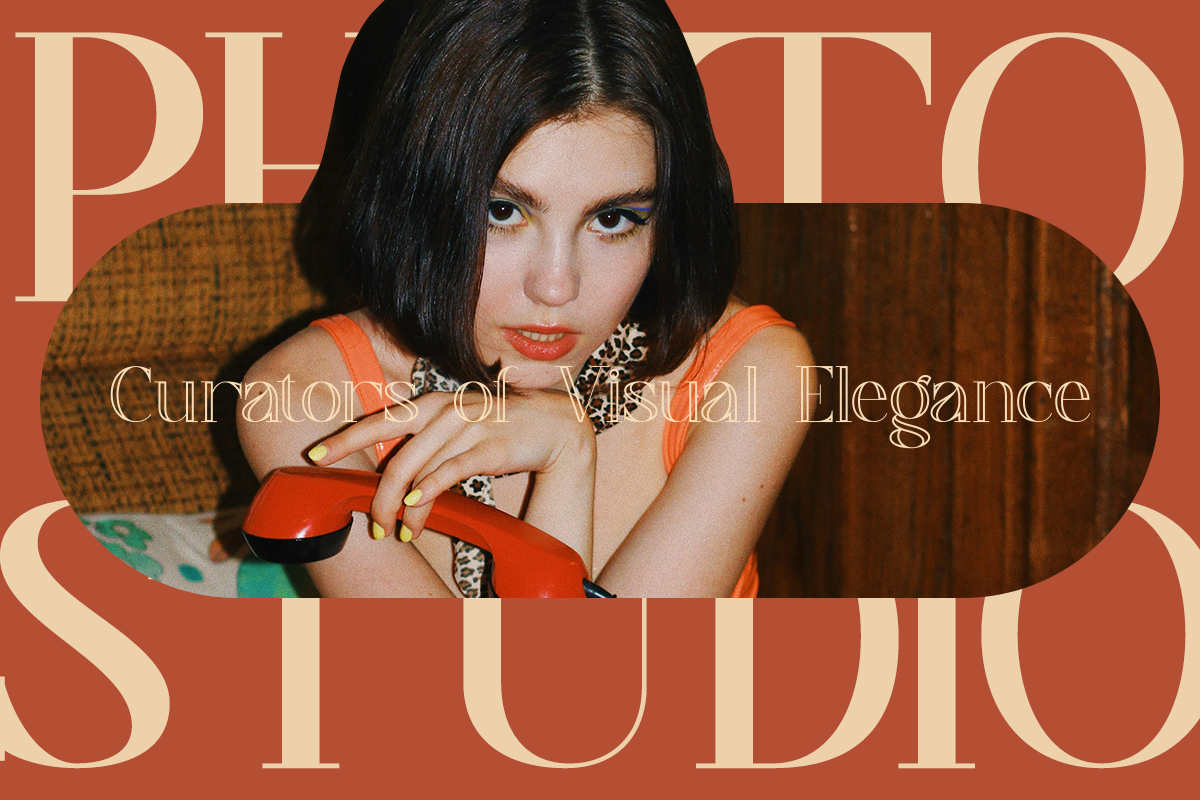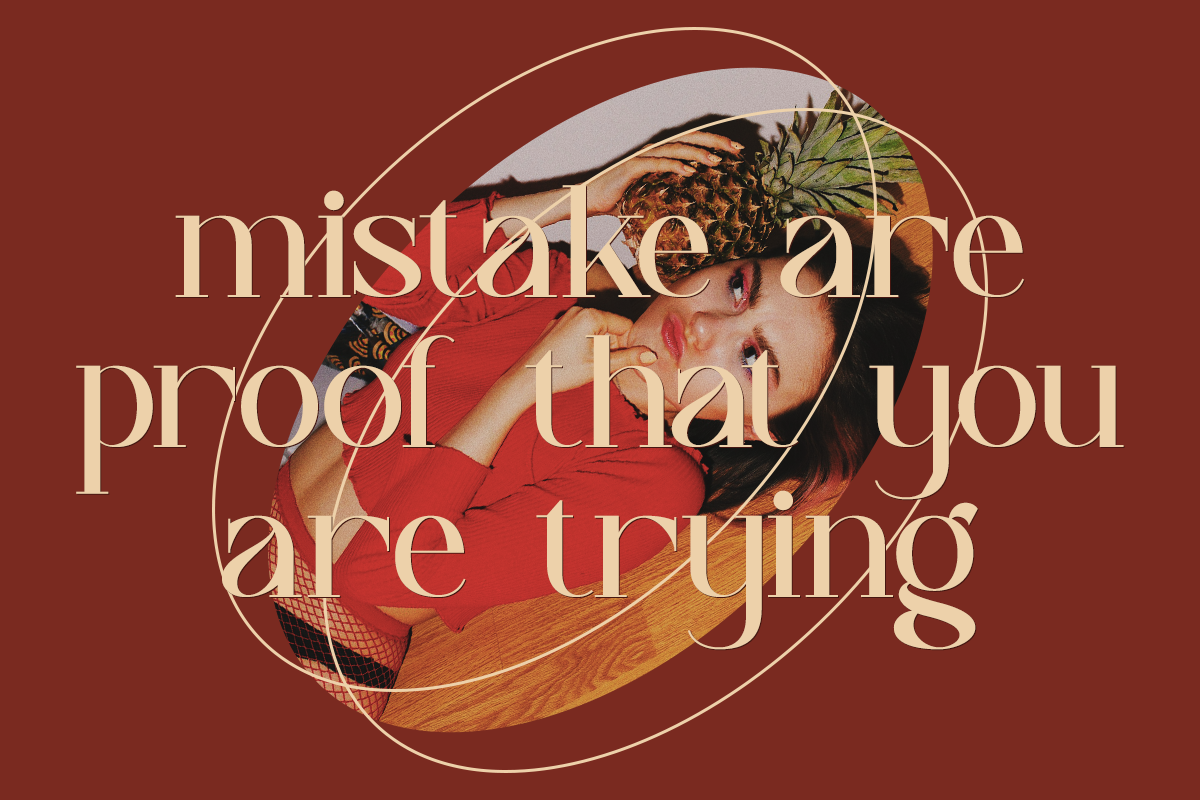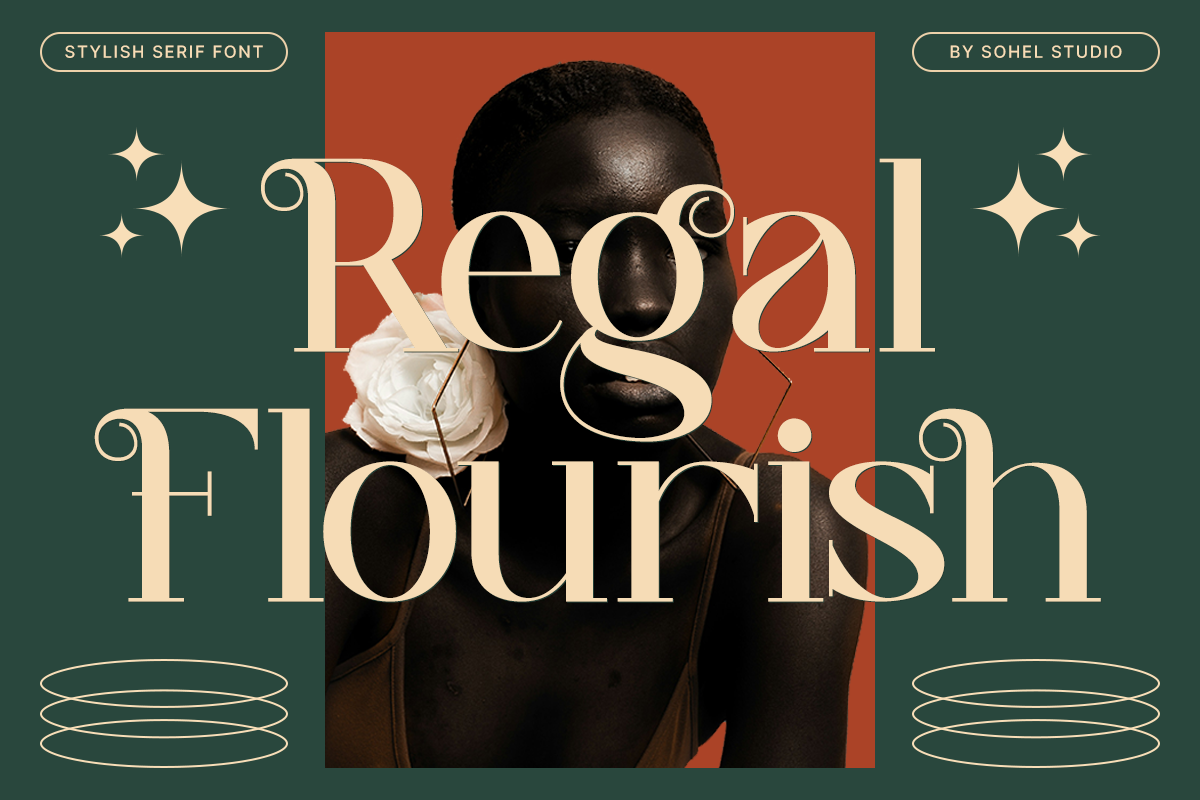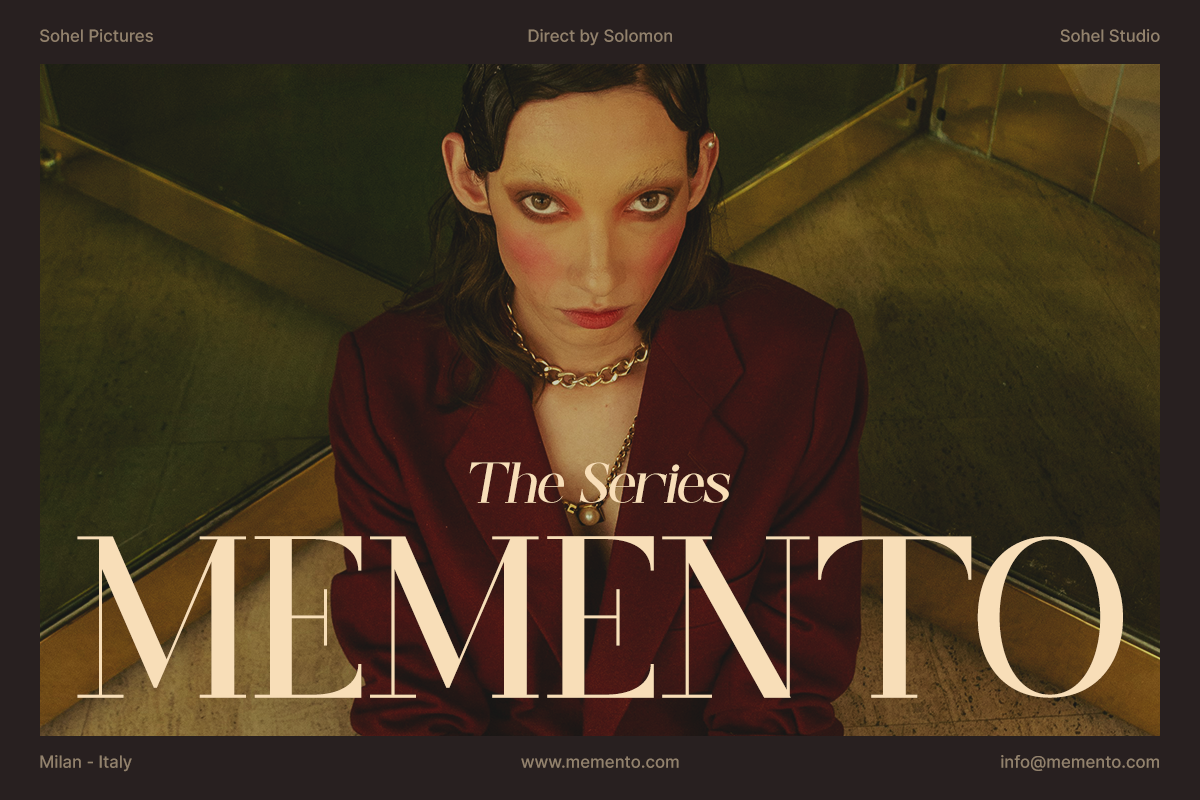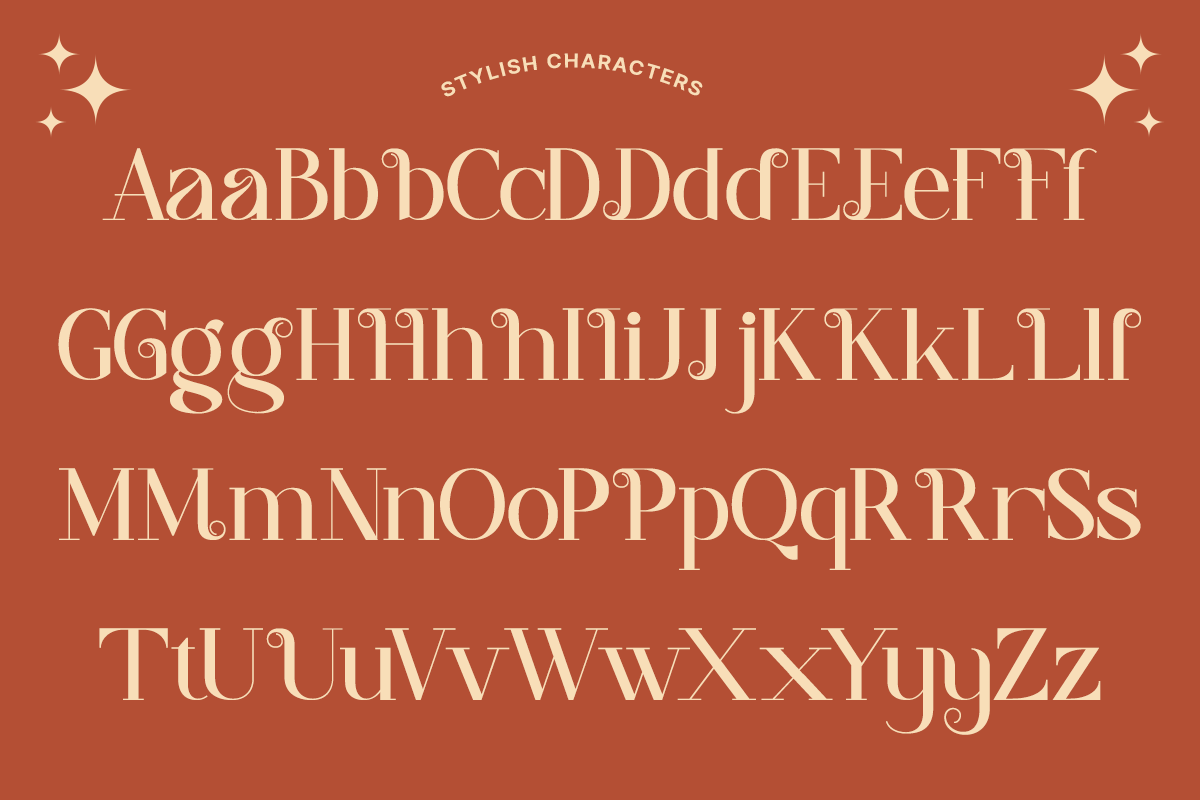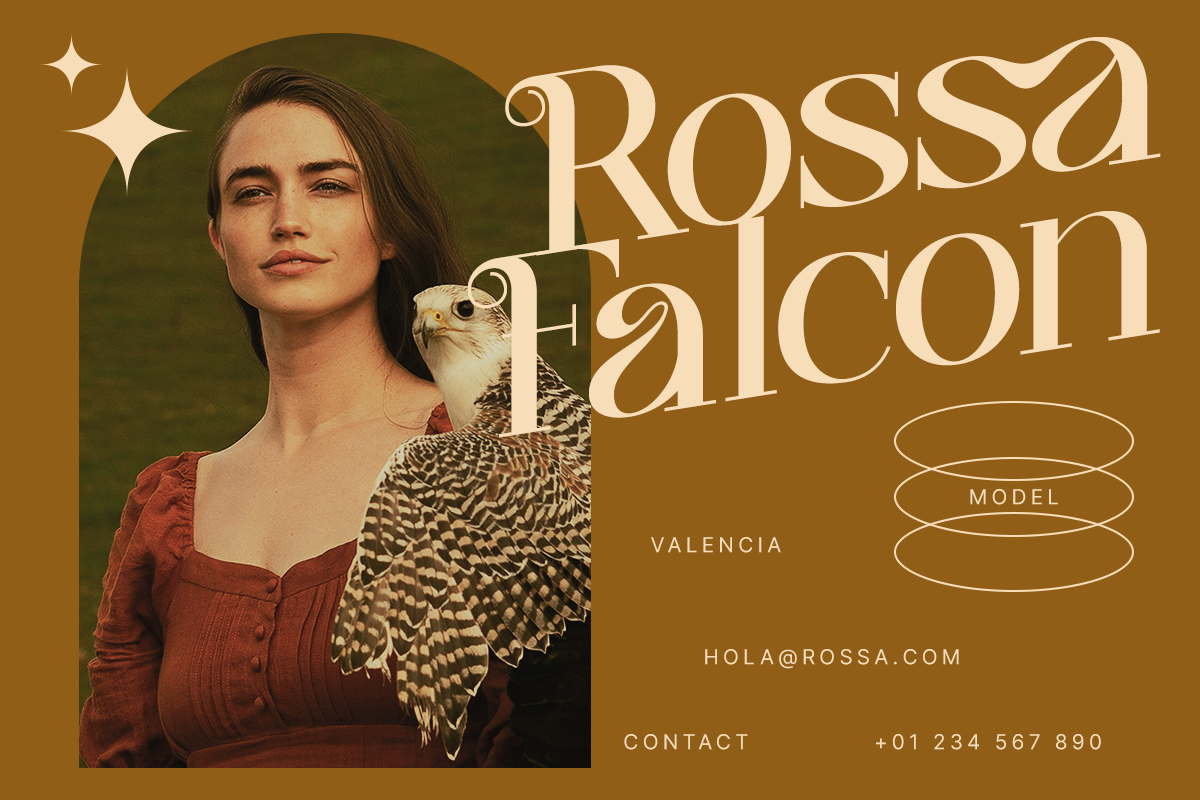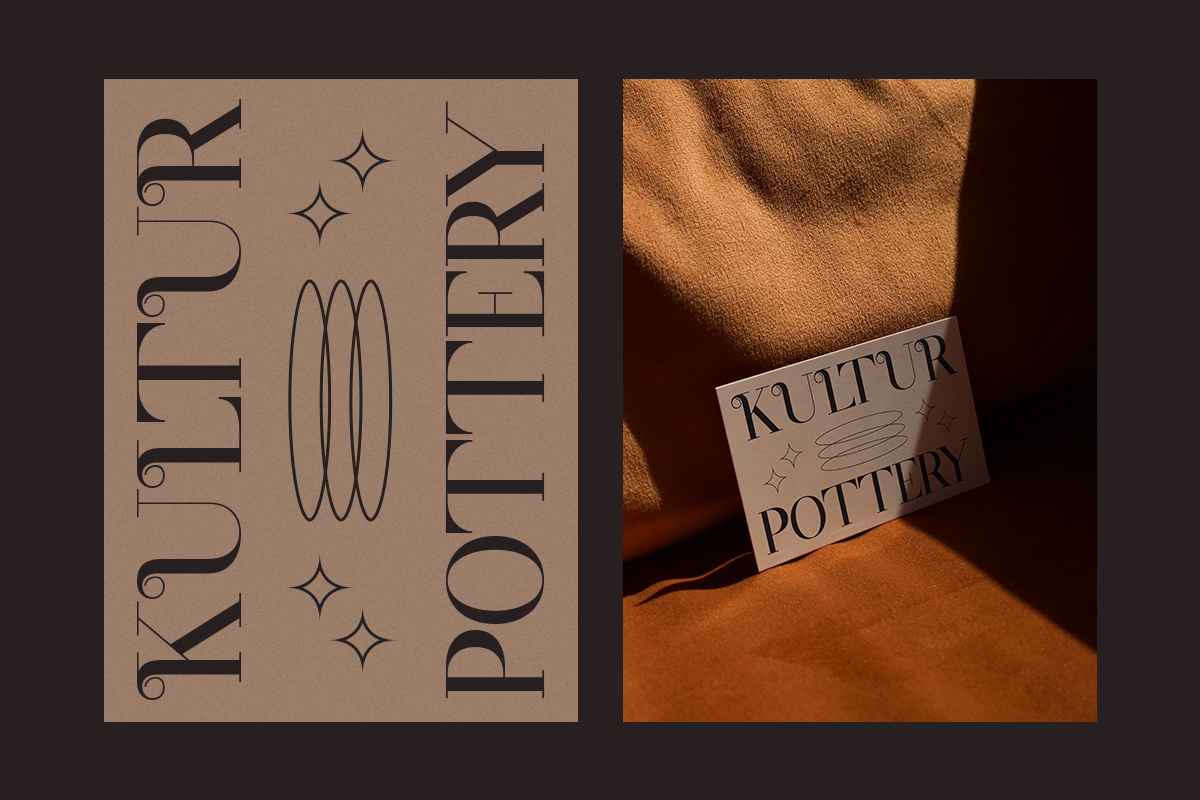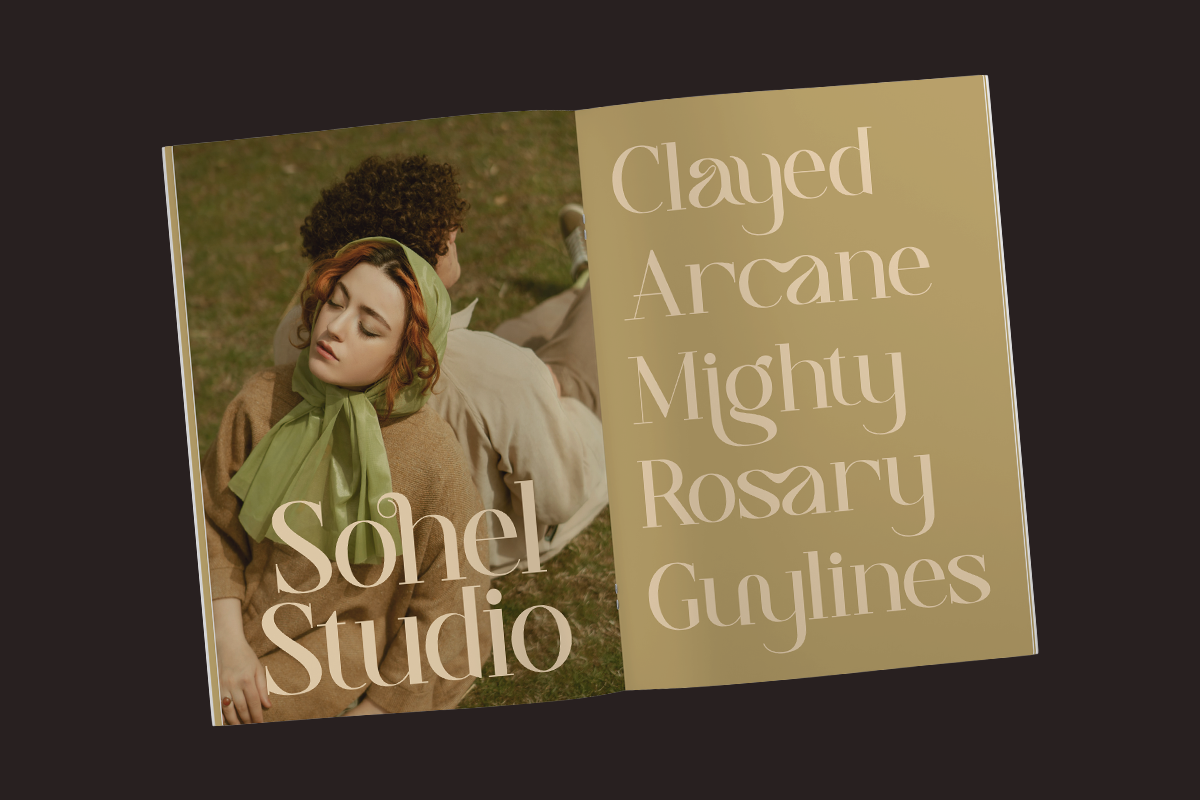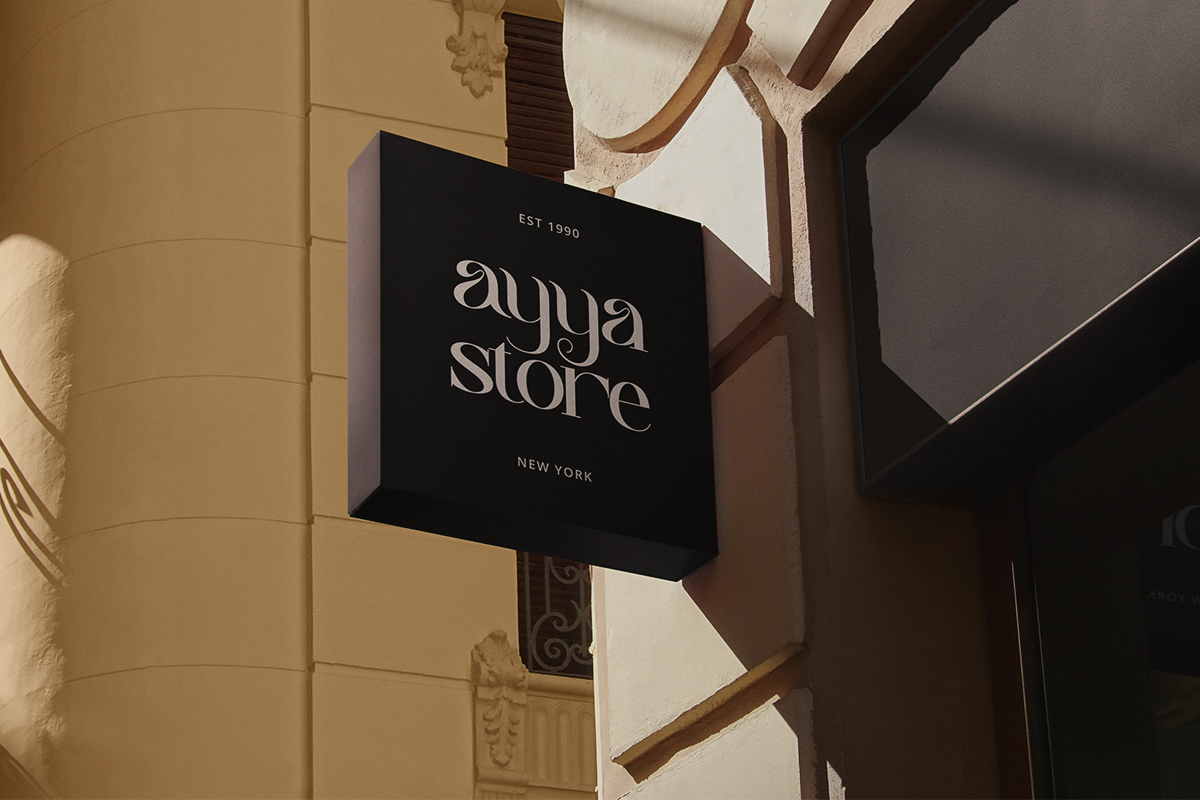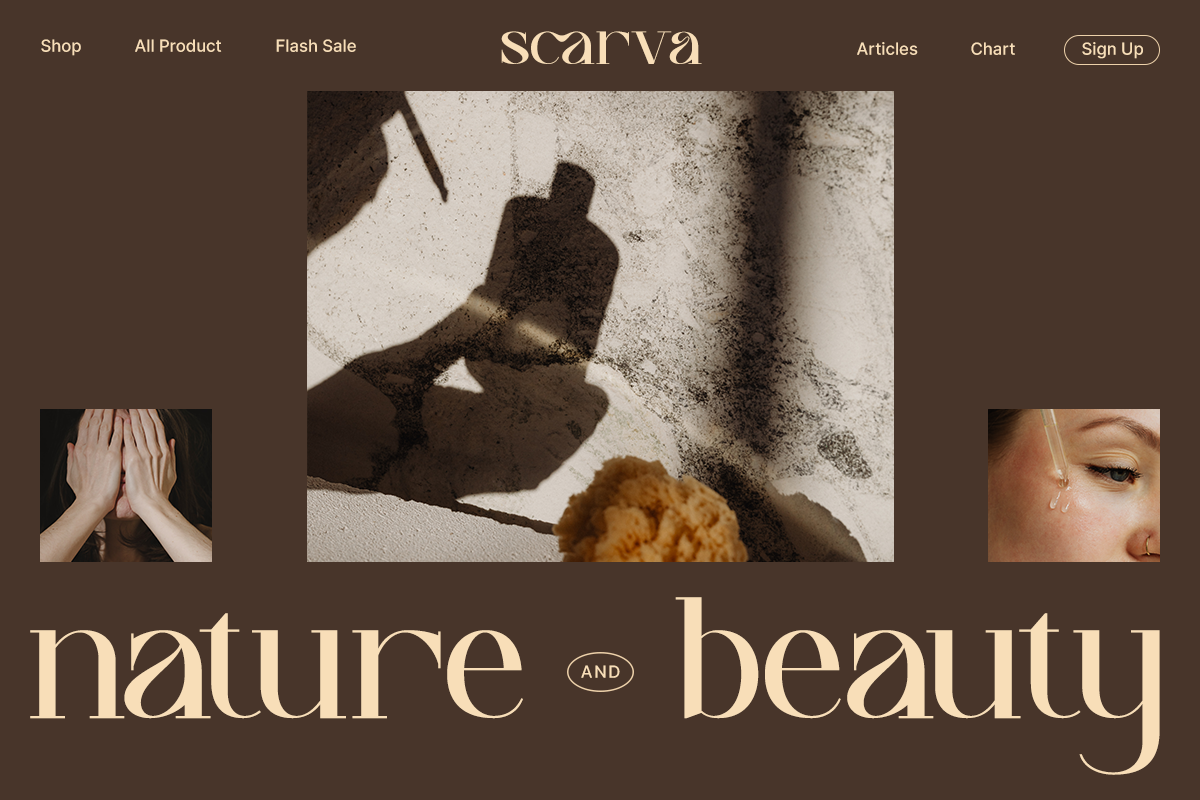
Regal Flourish - Unique Serif Font
Regal Flourish is a unique serif font that exudes classic elegance with a touch of decorative charm. Crafted with meticulous attention to detail, this font is perfect for projects that seek a luxurious yet modern feel. With its refined design and beautiful proportions, Regal Flourish is ideal for luxury branding, packaging design, wedding invitations, and editorial layouts.
- Classic serif style with unique ornamental elements
- Strong readability at various sizes
- Suitable for logos, business cards, posters, and more
- Multi-language support for global versatility
- Full Set of Characters: Uppercase, lowercase, numerals, punctuation, and symbols.
- Unique Alternates: For creating distinctive and personalized designs.
- Multilingual Support: Includes characters for multiple languages.
- Bonus Glyphs: Additional decorative elements to enhance your designs.
Bring timeless beauty to your work with Regal Flourish – where luxury meets artistic refinement.